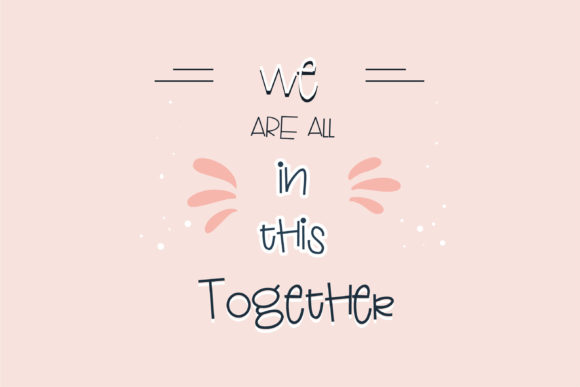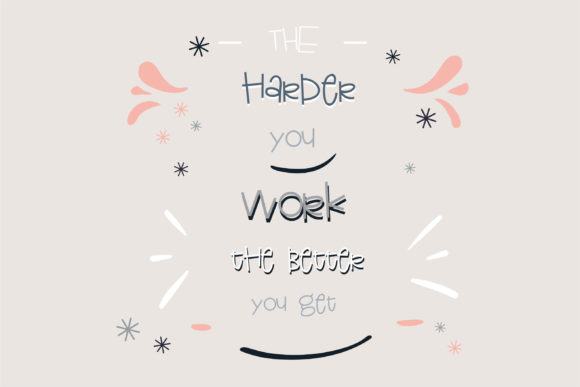
ZP Harvey Wallbanger Font
db-ku.com - Script & Handwritten -- This hand-written sans serif font is youthful and whimsical with a mix of sizing throughout. It will look fantastic on informal projects!